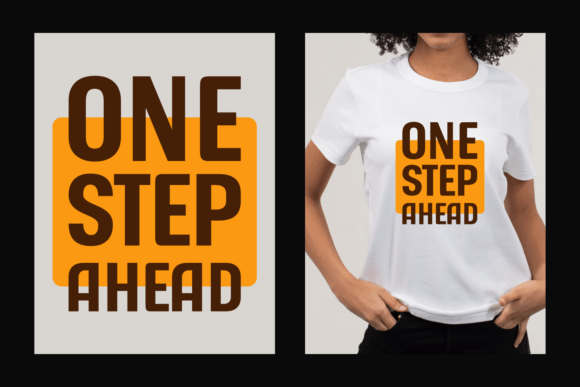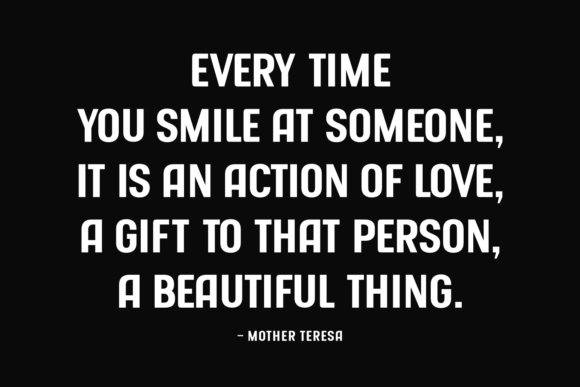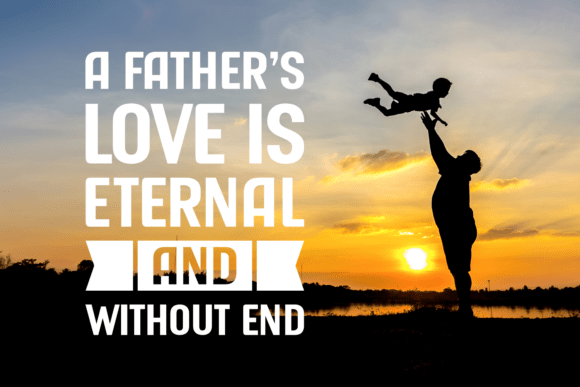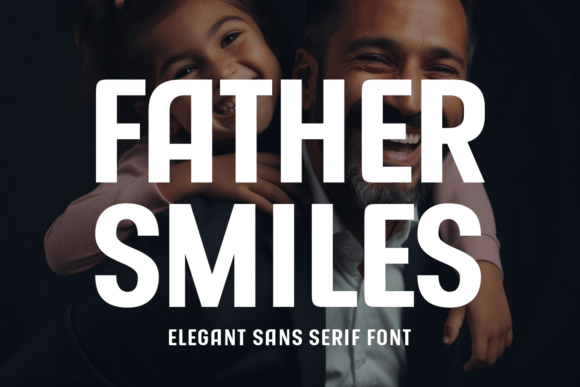
Discover the Elegance of Father Smiles Font: A Designer’s Dream
Immerse yourself in the world of the sublime Father Smiles font. Crafted with elegance and sophistication, Father Smiles is a bold sans serif typeface that boasts thick lines that demand attention. Birthed from a unique aesthetic, it offers an intriguingly distinctive character, making it a must-have in every designer’s toolkit.
The Birth of a Unique Aesthetic
Father Smiles font is not just another typeface; it’s an experience. Its creation is rooted in the desire to produce a font that stands out in a crowd, yet feels approachable and friendly. The result is a typeface that exudes confidence and style, making it perfect for projects that require a bit of flair.
Whether you’re fashioning headlines meant to command attention or designing couture T-shirt graphics, Father Smiles lends an undeniable charm. Its versatility shines across platforms, from striking banners to premium product labels. This adaptability makes it an invaluable asset for designers who work on a wide range of projects.
Crafting Unforgettable Impressions
Looming over handicraft projects or etching itself onto book covers, Father Smiles is a typeface that injects adorableness into every letter. Its unique ability to make a lasting impression is what sets it apart from more traditional typefaces. Position your brand for unforgettable impressions with Father Smiles, the design font that’s equally perfect for posters or powerful displays.
The Art of Typography
Father Smiles font excels in its ability to synthesize stunning visuals within typography. This makes it the optimal brand architecture choice for designers looking to elevate their work. The font’s bold and elegant appearance ensures that your message is not only seen but also remembered.
Applications of Father Smiles
The applications of Father Smiles font are vast and varied. Here are a few ideas to get you started:
- Headlines and Banners: Use Father Smiles to create headlines that grab attention and banners that stand out.
- T-Shirt Graphics: Add a touch of elegance and sophistication to your T-shirt designs.
- Product Labels: Elevate your product labels with a premium look and feel.
- Book Covers: Make your book covers stand out with a unique and captivating typeface.
- Posters and Displays: Use Father Smiles to create visually stunning posters and displays.
Why Choose Father Smiles?
There are many reasons why Father Smiles font should be your go-to typeface:
- Unique Aesthetic: Offers a distinctive character that sets it apart from other typefaces.
- Versatility: Suitable for a wide range of projects and applications.
- Elegance and Sophistication: Adds a touch of class and refinement to any design.
- Easy to Read: Despite its bold appearance, Father Smiles remains clear and legible.
| Font Name | Father Smiles Font |
| Author | Eightde |
Dive into the alluring universe of Father Smiles and discover a world of typographic possibilities. With its elegant and sophisticated design, this bold sans serif typeface is sure to become a staple in your design toolkit. Whether you’re a professional designer or a crafty DIY enthusiast, Father Smiles font offers the perfect blend of style, versatility, and charm.